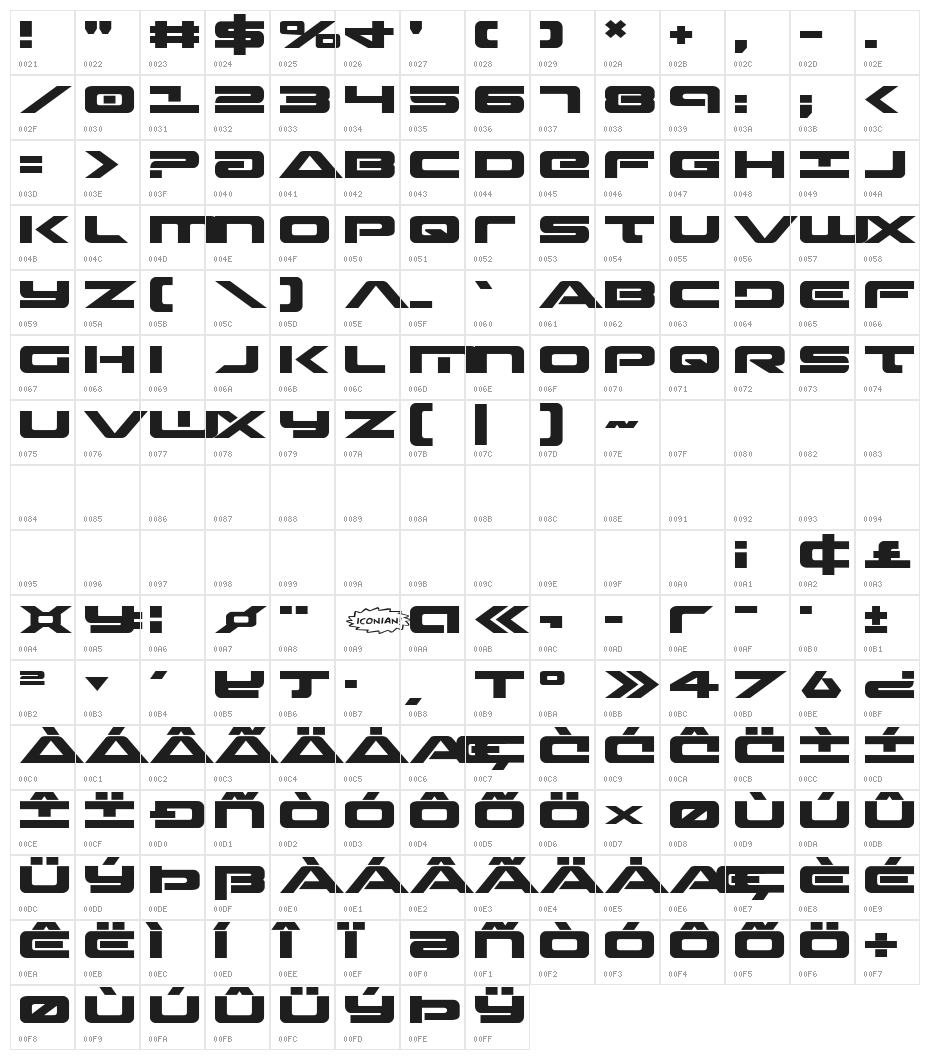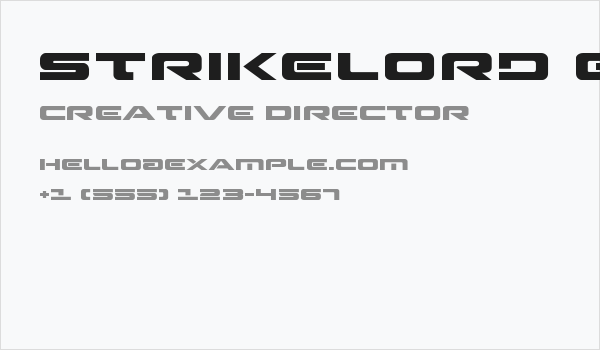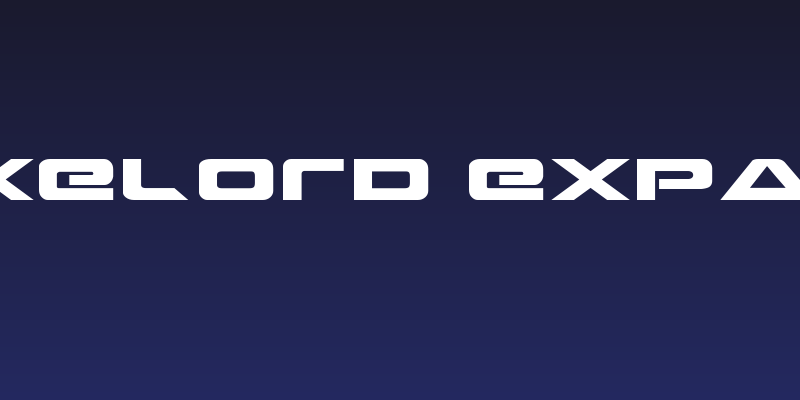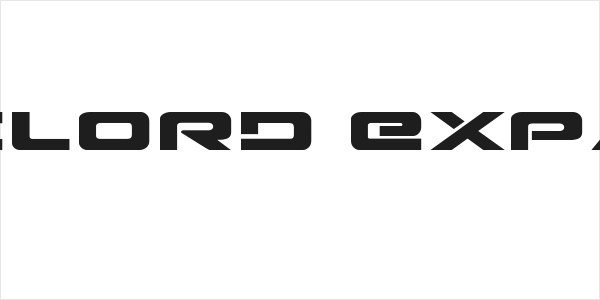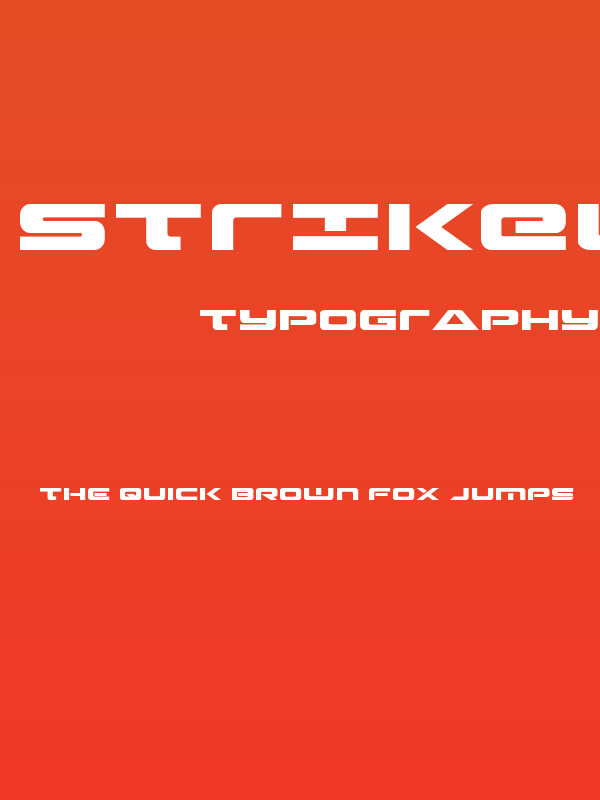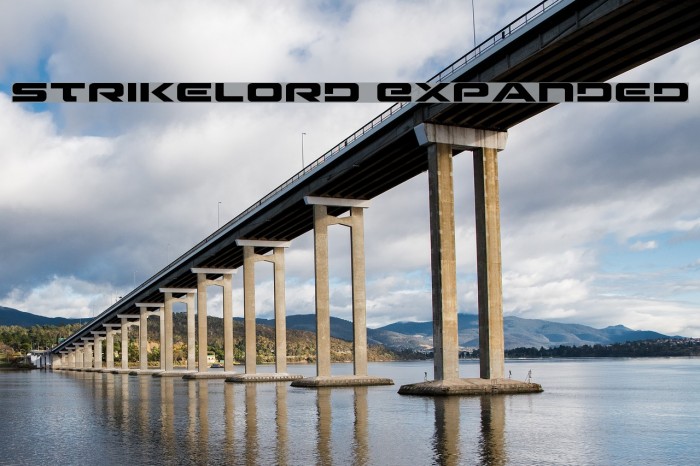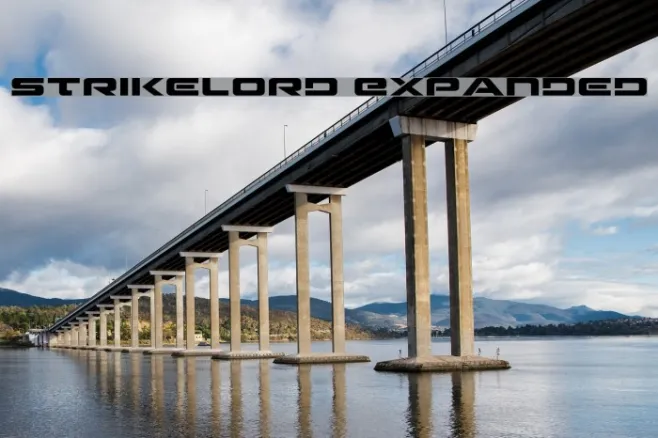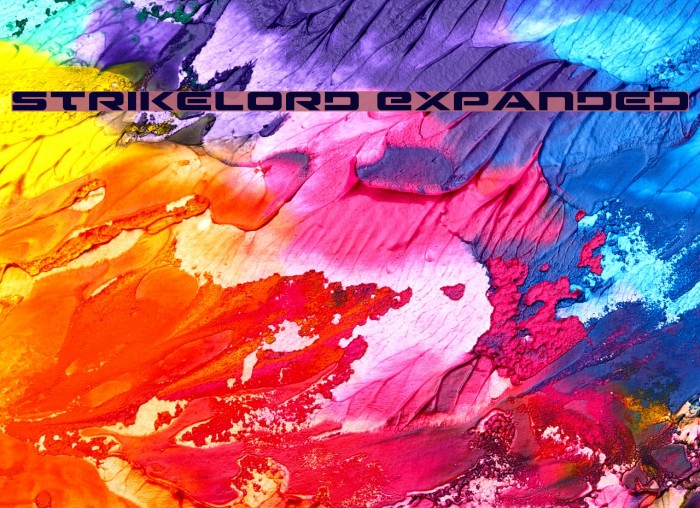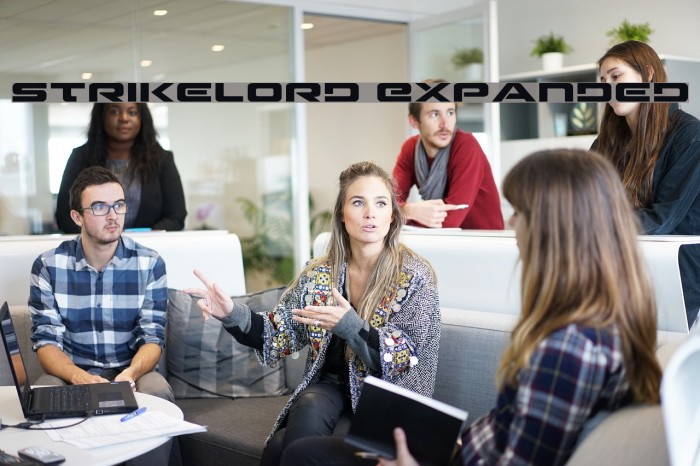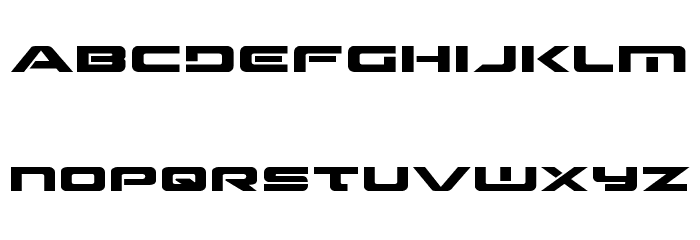
Strikelord Expanded Font
Strikelord Expanded Description
This font features a bold and futuristic design, characterized by its angular and geometric letterforms. The uppercase and lowercase letters share a consistent style, with sharp edges and a strong presence. The numerals and special characters maintain this cohesive look, making the font suitable for attention-grabbing headlines and modern designs. Its expanded width gives it a commanding appearance, while the uniform stroke weight ensures readability. The font's unique style is ideal for projects that require a contemporary and edgy aesthetic.
| Proposed Projects | Ideal for sci-fi themed designs, video game titles, technology branding, and modern posters. |